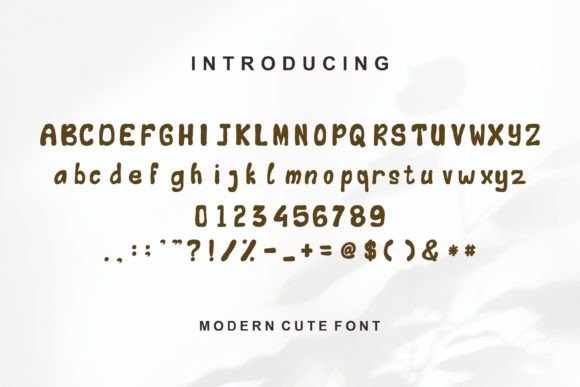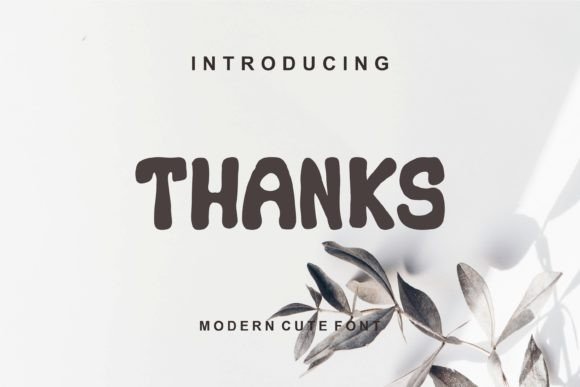
Introduction to Respatin Font
Have you ever been in a creative zone, surrounded by colorful pens, sticky notes, and an endless supply of design resources, only to find the perfect font to elevate your project? For many designers, this moment is pure bliss. The search is over, and the excitement begins as they start brainstorming ways to incorporate their new favorite font into their design. This is exactly what happens when you stumble upon the Respatin Font – a high-quality, adorable display font that exudes friendliness and approachability.
Whether you’re working on a digital design project, crafting handmade cards, or creating engaging presentations, the Respatin Font has the potential to become your go-to design resource. Its versatility and charm make it a valuable addition to any designer’s toolkit, offering endless possibilities for creative expression.
Key Features of Respatin Font
- High-quality font design suitable for creative projects and design resources.
- Transparent background, allowing for seamless integration with various backgrounds.
- Optimized for high-resolution displays, featuring a resolution of 300 DPI or higher.
- Designed to be highly legible, making it perfect for body text, headings, and titles in creative projects.
- Part of a comprehensive font family, offering a range of styles and weights to suit diverse design needs.
Honest Review: Respatin Font
I recently had the chance to work with the Respatin Font, and I must say it’s a fantastic addition to any design resource. This high-quality font is perfect for any creative project that requires a modern and sleek look.
One of the standout features of the Respatin Font is its transparent background, which makes it incredibly versatile and easy to use. I loved how I could easily overlay it on top of any image or background without worrying about any awkward edges or awkwardness.
- ✨ Transparent background for easy overlay
- ⚠️ Limited character set, which may not be ideal for longer texts
- ⚠️ May not be as versatile for more traditional or formal designs
Tips for Getting the Most Out of Respatin Font
Experiment with different font sizes and styles to find the perfect combination for your creative project. Use the font in conjunction with other design elements, such as images and graphics, to create a visually appealing design.
Common Use Cases for Respatin Font
The Respatin Font is ideal for use in logos, social media graphics, brochures, posters, and presentations. Its high quality and transparent background make it a popular choice among designers and creatives.